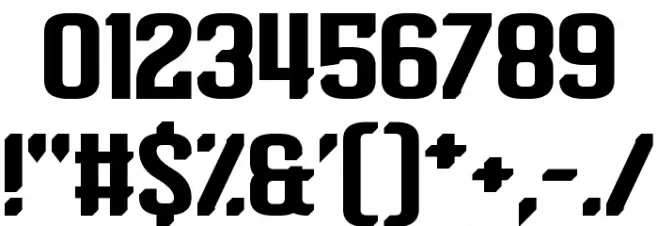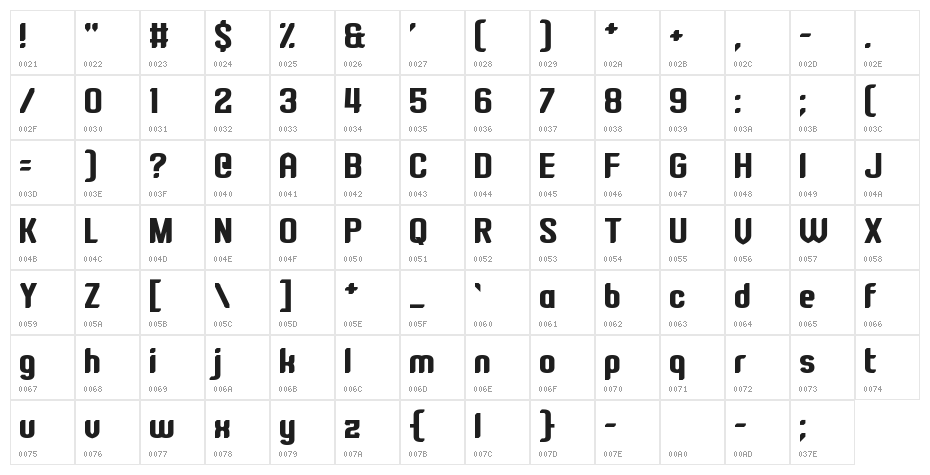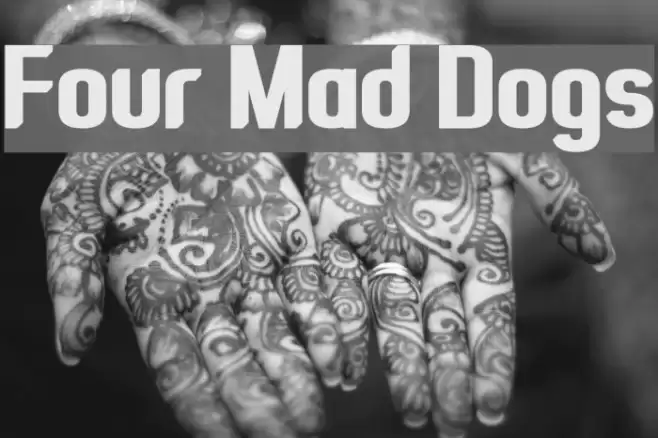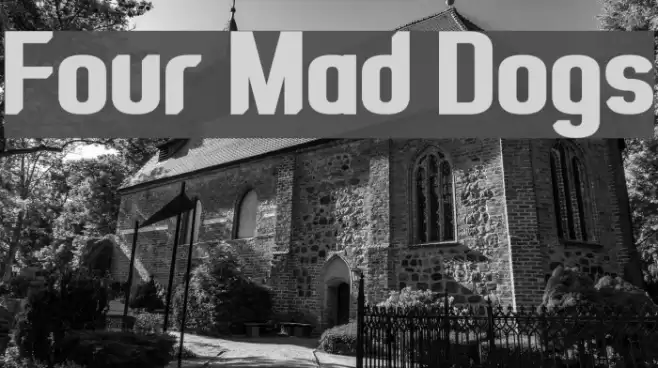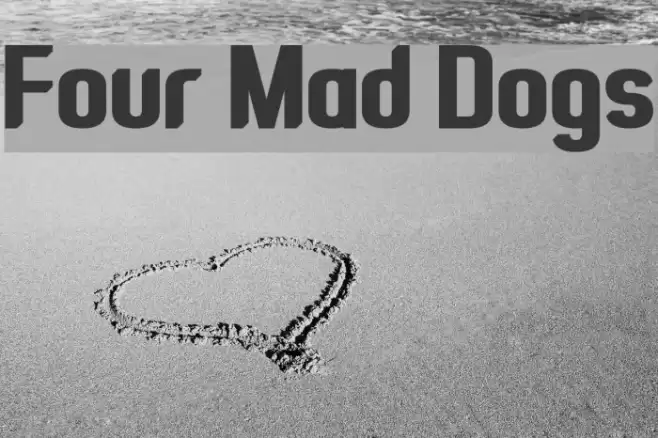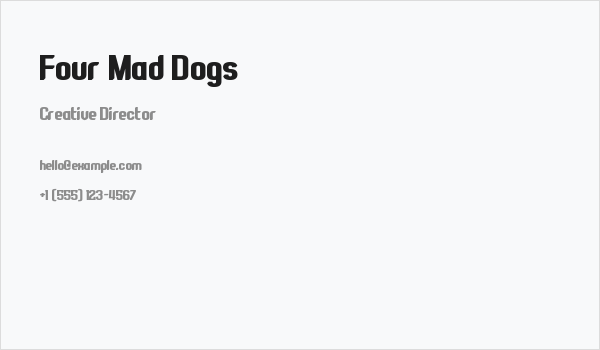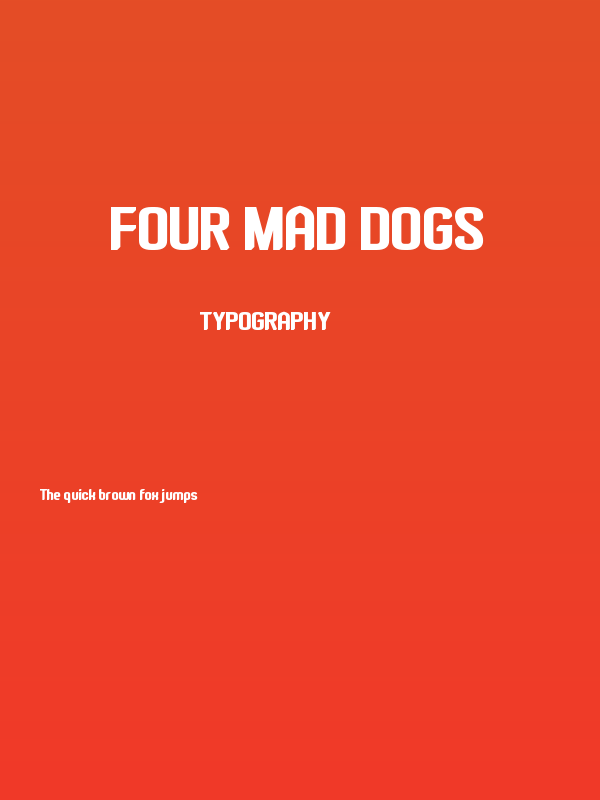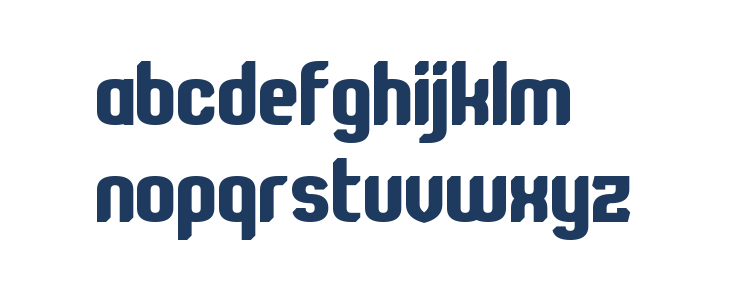
Four Mad Dogs Font
Four Mad Dogs Description
This font features a bold and robust design with a modern flair. The characters are uniformly thick, providing a strong presence on the page. The uppercase letters are slightly condensed, giving a compact and efficient look, while the lowercase letters maintain a consistent style that complements the uppercase. The numerals are clear and easy to read, matching the boldness of the alphabet. Special characters are well-integrated, maintaining the overall aesthetic. The font's design is ideal for making a statement, with its high impact and readability.
| Proposed Projects | Ideal for branding, headlines, posters, and any project requiring a bold statement. |